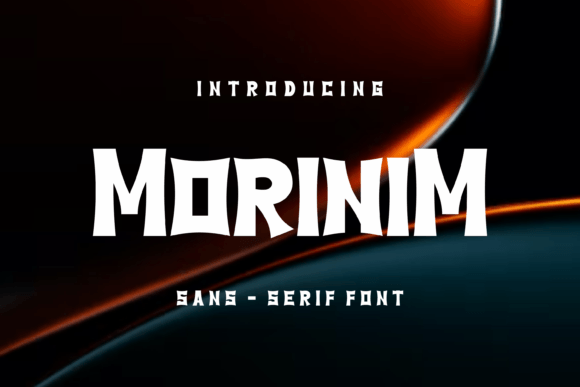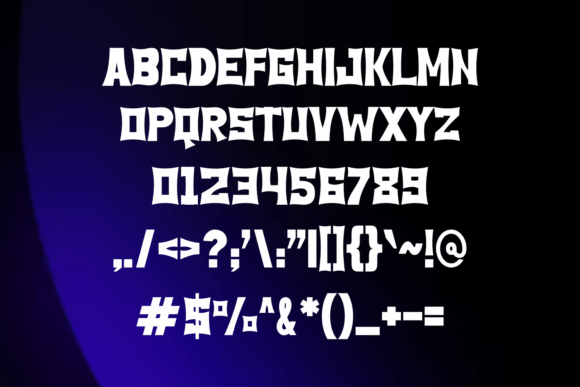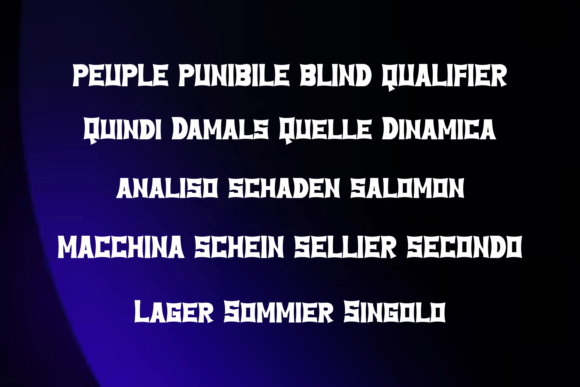
Morinim: A Bold and Unique Slab Serif Font
Morinim is a bold and unique slab serif font characterized by thick, block-like serifs[2]. This versatile typeface is perfect for various creative applications, from branding and logos to large-scale artwork.
Key Features of Morinim
- Bold Design: Offers thick, commanding letterforms[2].
- Unique Style: Features distinctive slab serif characteristics.
- Strong Presence: Creates impactful visual statements[2].
- Versatile Application: Adapts well to numerous design contexts.
Best Uses for Morinim
Thanks to its versatile characteristics, Morinim works especially well for:
- Professional branding
- Name cards
- Eye-catching posters
- Distinctive logos
- Magazine covers
- Banner designs
- T-shirt designs
When using Morinim in your designs, keep these tips in mind:
- Try it for headlines to showcase its bold character[2].
- Use its unique style for distinctive branding.
- Take advantage of its strong presence for impactful designs[3].
- Let its versatility enhance various applications.
To sum up, Morinim is an excellent choice for designers seeking a bold and unique slab serif font. Its versatility makes it perfect for various creative projects. Whether you’re creating branding materials, designing magazines, or developing large-scale artwork, Morinim offers the perfect blend of boldness and uniqueness.
Furthermore, Morinim’s distinctive design allows it to shine in contexts where both impact and uniqueness are key. From name cards to t-shirt designs, this font can elevate your projects with its commanding style. Also, its bold yet readable appearance works particularly well in designs that aim to make a strong impact[2].
In conclusion, Morinim truly captures the essence of bold design in slab serif typography. Its ability to work across different applications shows how well it can serve various creative needs. Therefore, for those wanting to add a touch of bold uniqueness to their work, Morinim can enhance any design with its distinctive style. Ultimately, it’s perfect for designers aiming to make a strong, memorable impact across creative projects.